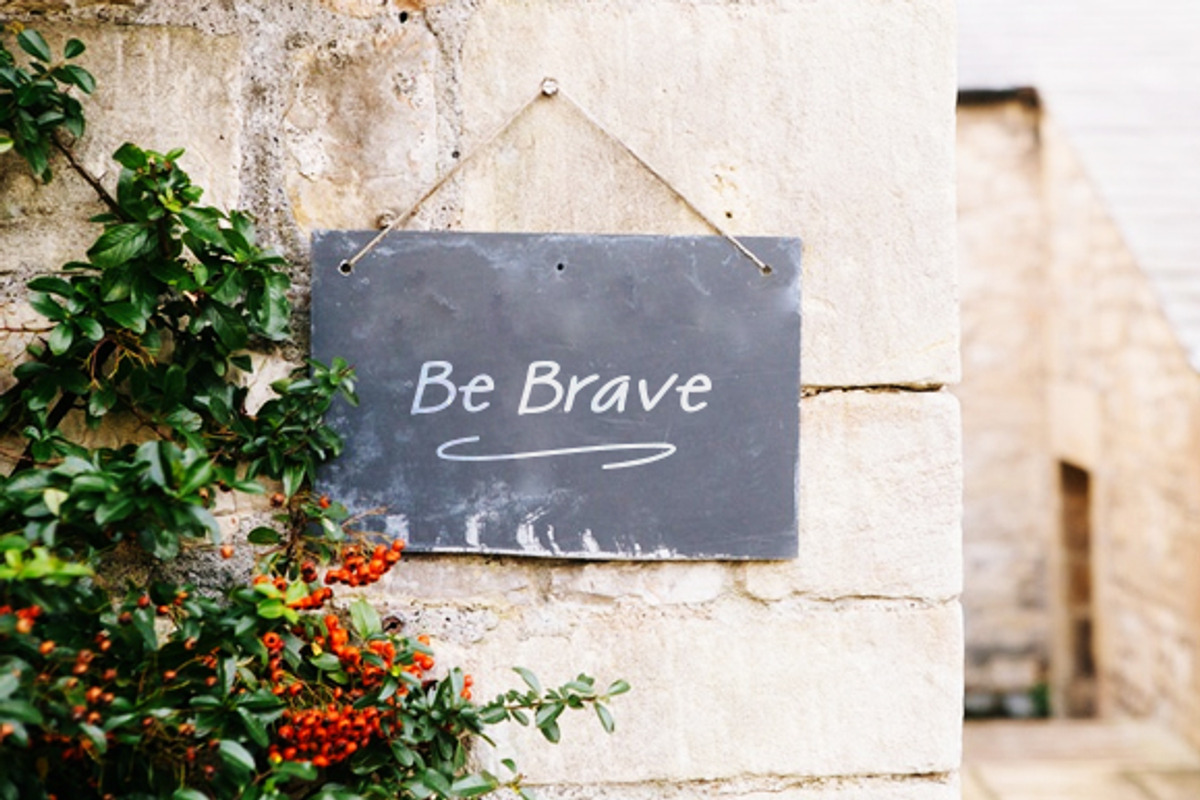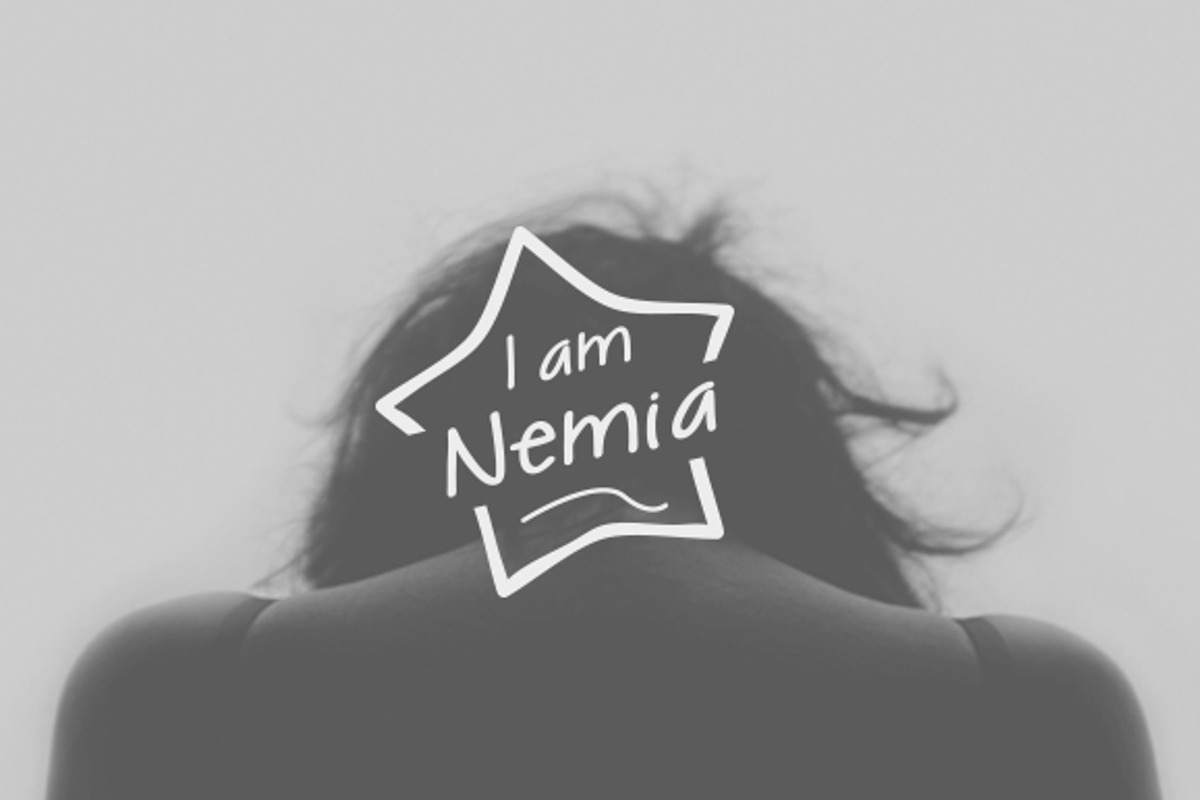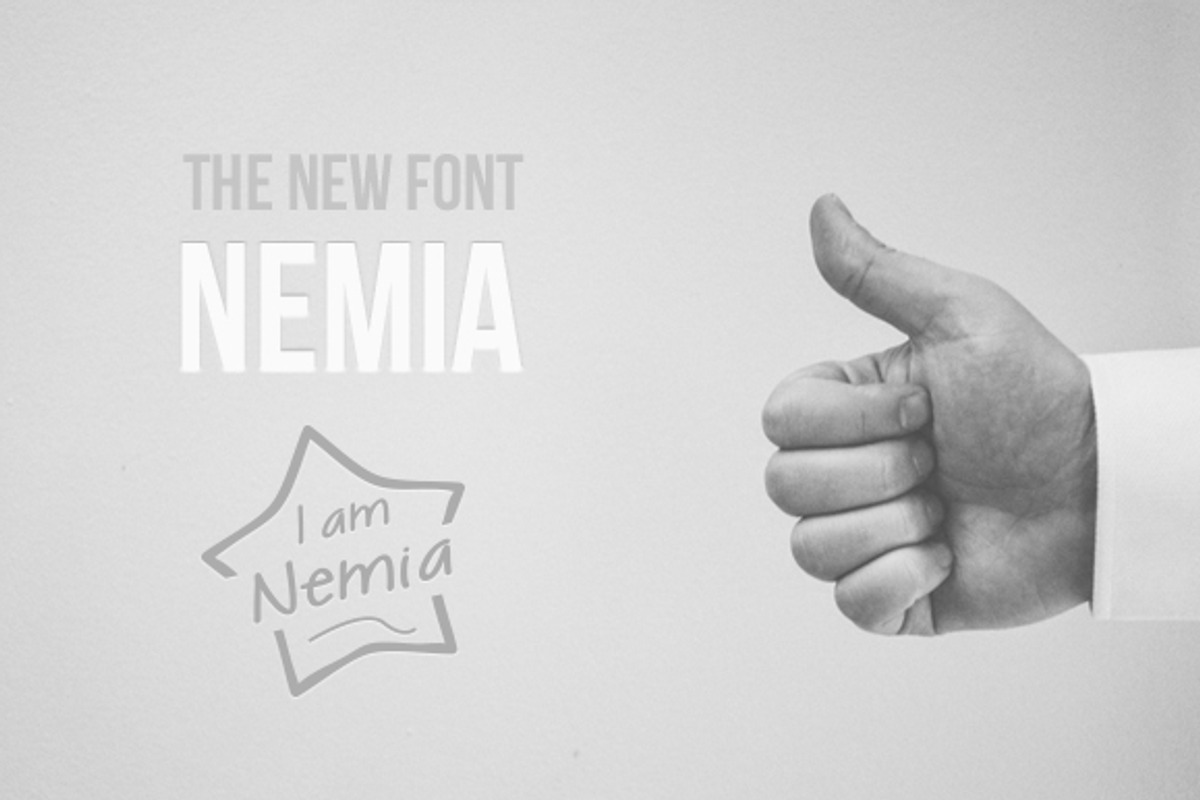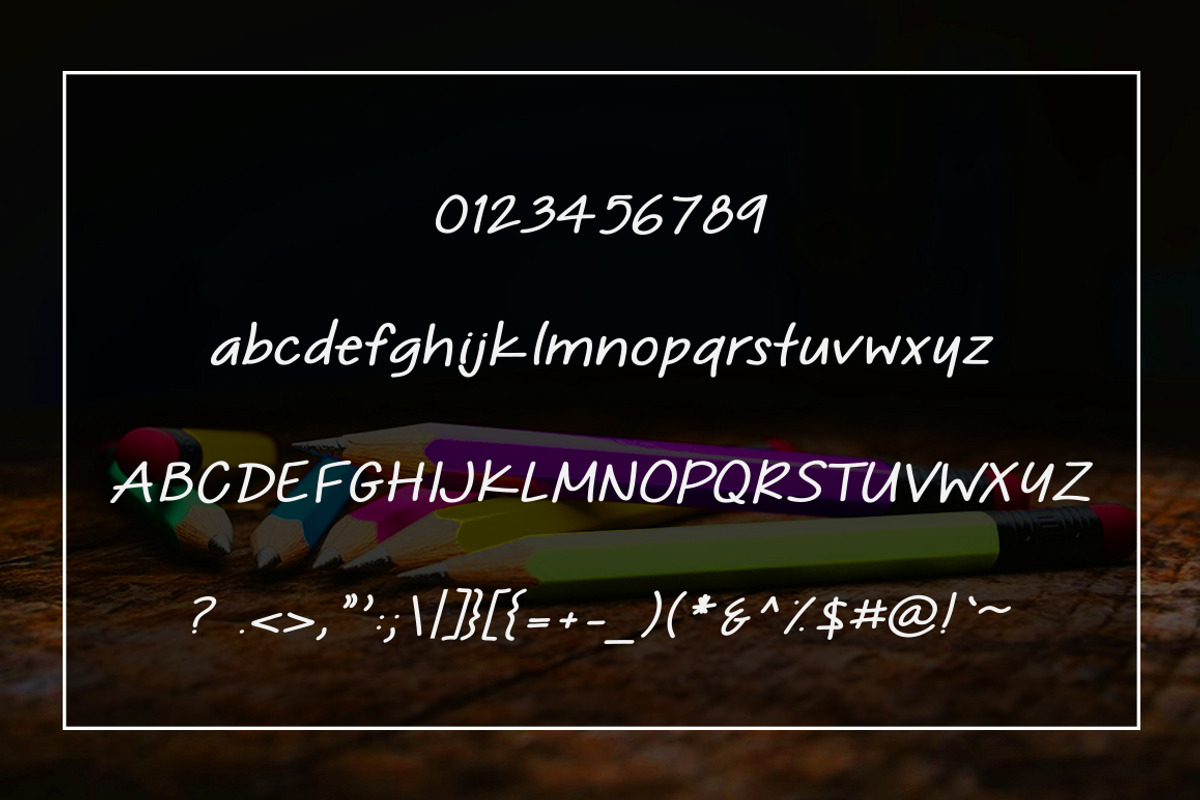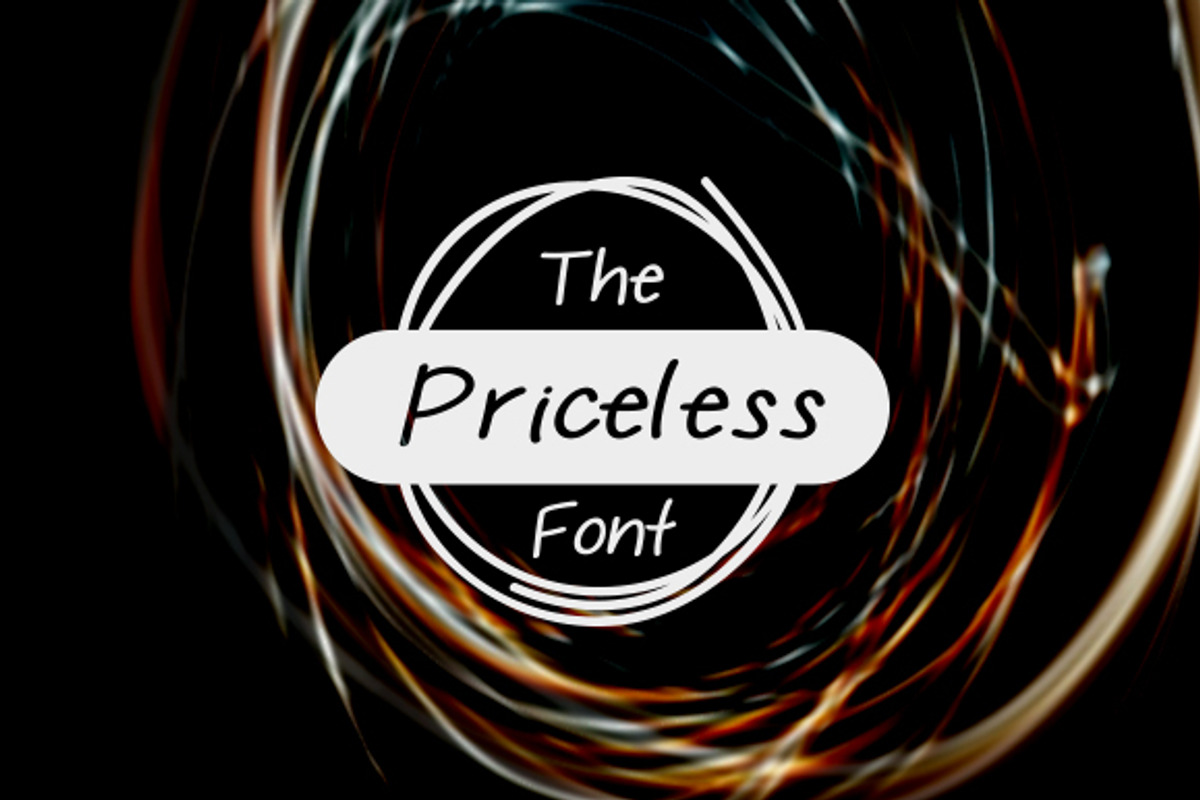
Nemia Font
Nemia Font by NasirGrfx is a font selected for branding, posters, packaging, typography.
Why Nemia Font is worth a look
Nemia Font by NasirGrfx fits naturally into Branding, posters, packaging, typography.